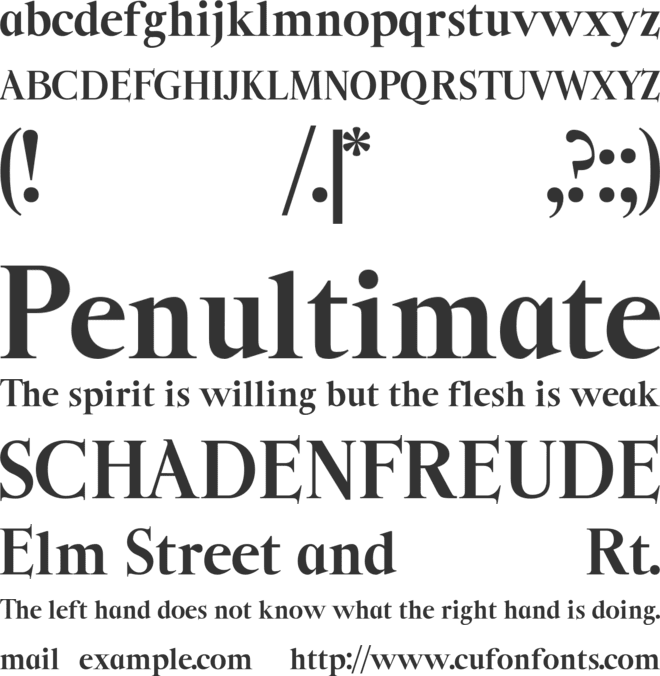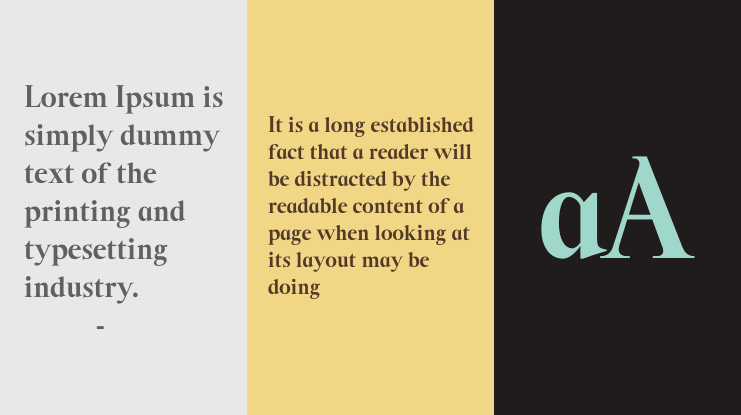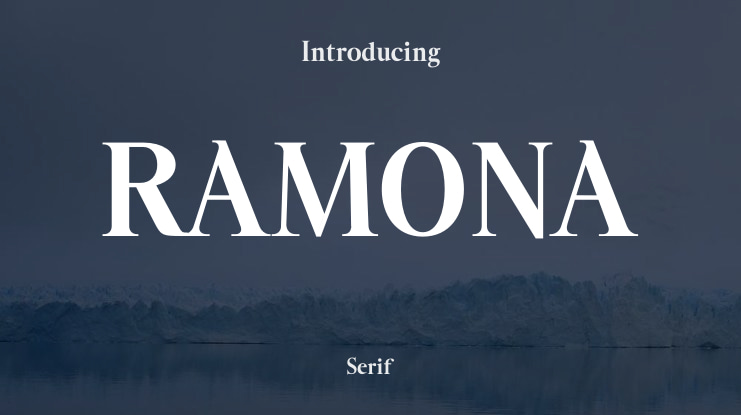
RAMONA Font
🎨 Font Name: RAMONA by Minimalist Art Studio
🎨 Font Description: Romona is a classic serif typeface with romantic curves, multilingual support, and vintage elegance—perfect for wedding stationery, editorial layouts, boutique branding, and upscale digital design.
✔ Complete Latin set + multilingual diacritics
✔ Alternates, stylistic sets & ligatures
✔ Numbers, small caps, and extended punctuation
✔ Bonus italics and family styles